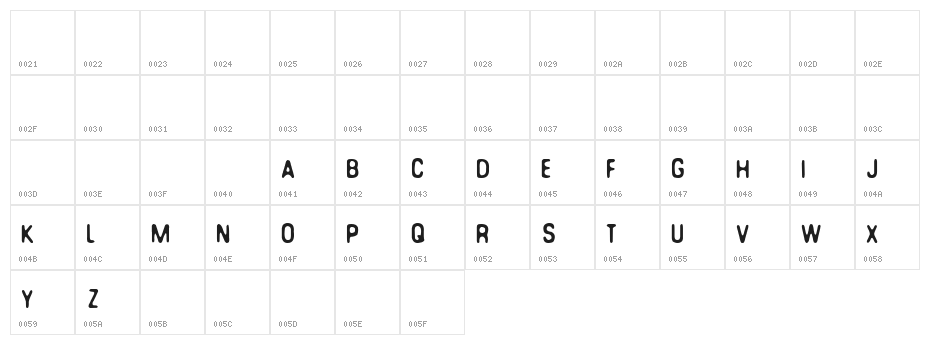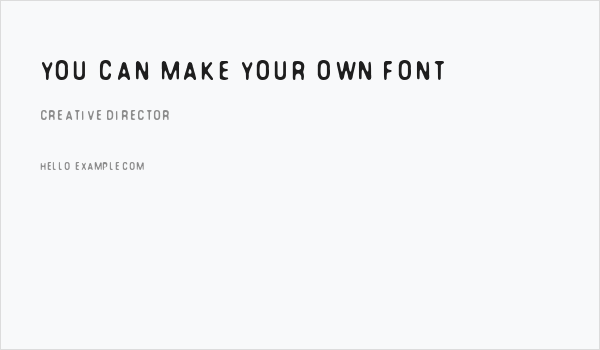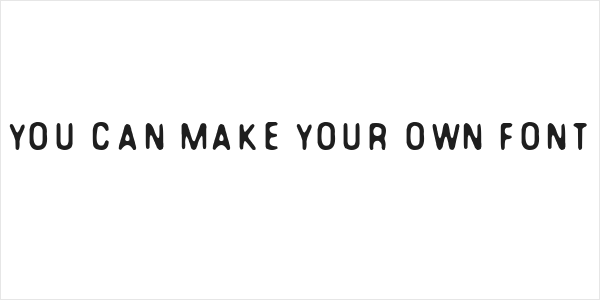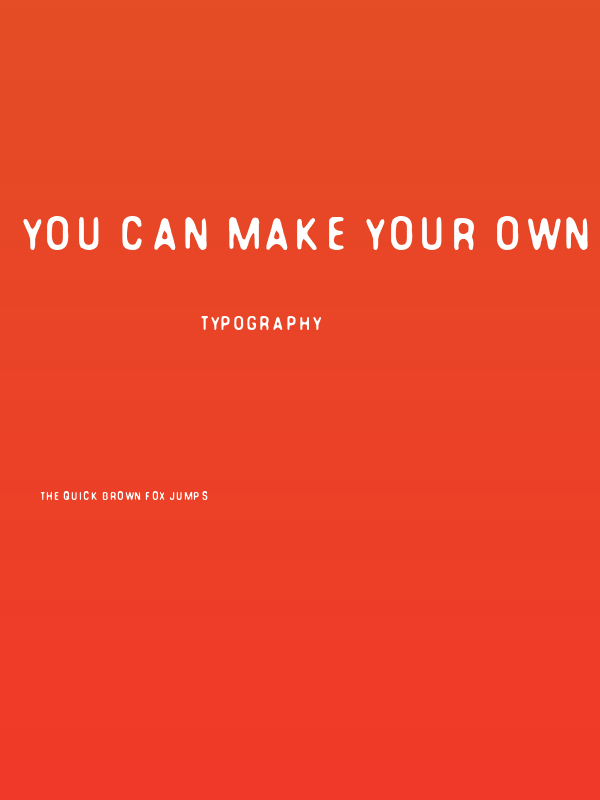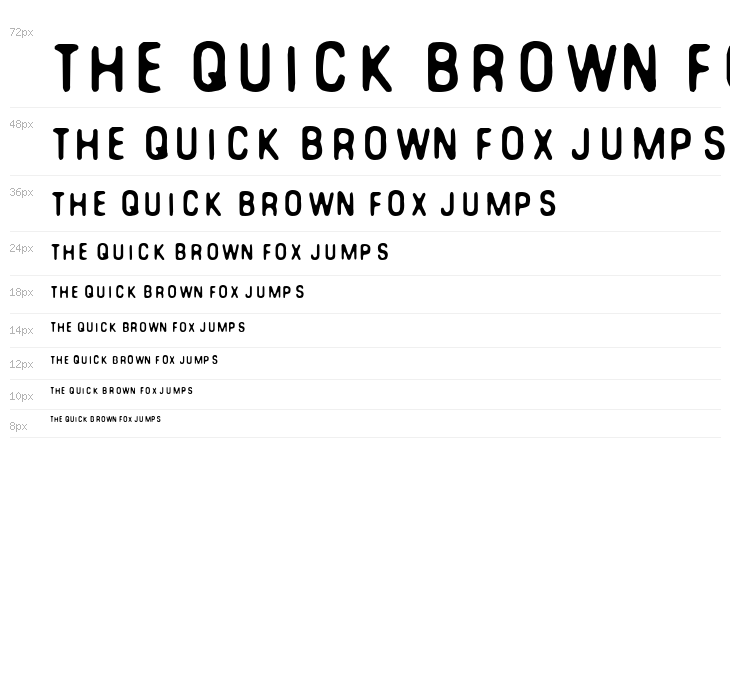
You Can Make Your Own Font Font
You Can Make Your Own Font Description
This font features a bold and rounded style with a playful and slightly irregular design. The characters are uniformly bold, with a consistent stroke width that gives them a strong presence. The rounded edges and slightly uneven lines add a handcrafted feel, making it ideal for projects that require a personal touch. The uppercase letters are prominent and well-defined, while the lowercase letters maintain the same boldness and rounded characteristics. The numbers and special characters follow the same design principles, ensuring a cohesive look across all text elements.
| Overall Style | Playful, Handcrafted |
| Proposed Projects | Ideal for children's books, playful branding, casual invitations, and creative posters. |